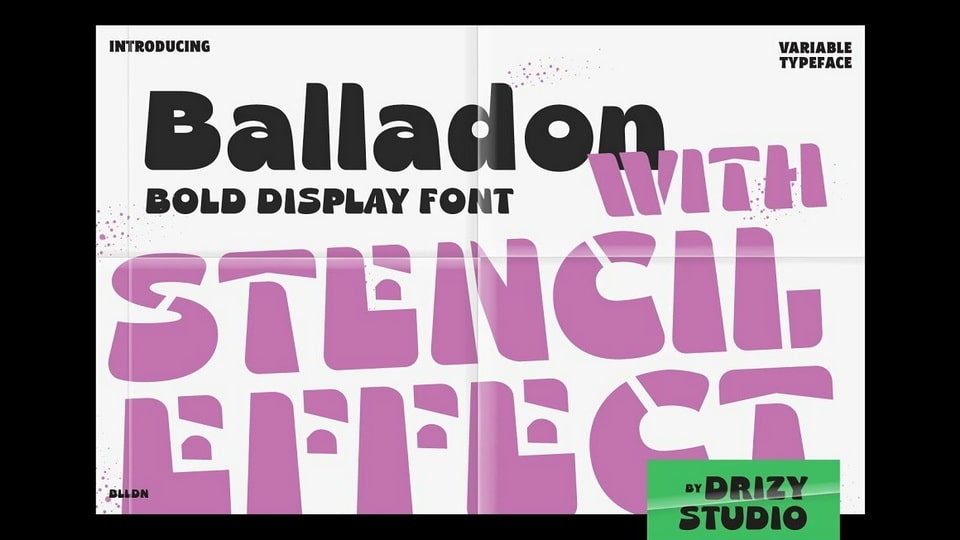
Download Balladon font, a bold and playful display typeface for unique eye-catching theme. Balladon offers all the basic styles you will need for a successful project.
Designer: Drizy Studio